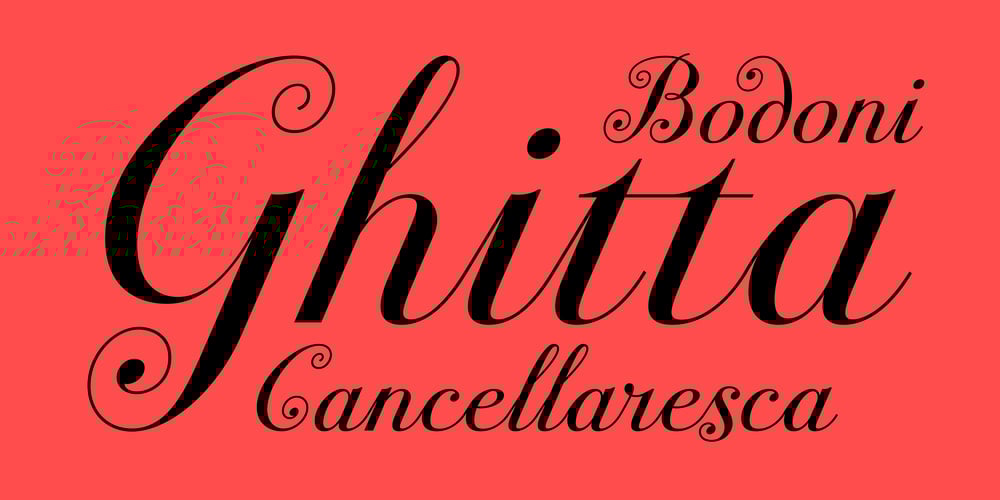
Ghitta Bodoni Cancellaresca Font Family was designed by Giambattista Bodoni, Jakub Spurný and published by Spurnej Type Foundry. Ghitta Bodoni Cancellaresca contains 4 styles and family package options. Giambattista Bodoni was an Italian engraver, printer, and publisher who was one of the best typographers of the 18th century and became known worldwide for his iconic serif typeface. In the posthumous edition of Bodoni’s “Manual of Typography” published in 1818 by his widow Margherita “Ghitta” Dall’Aglio may also be found, among the other treasures, the Cancellaresca (Chancery).Ghitta is a redesign of this typeface in its finest form. With strong stroke contrast in 4 optical grades, 850 glyphs with wide range of language support, accented ligatures, oldstyle figures, 8 stylistic sets, and unique way of letter connection, Ghitta Bodoni Cancellaresca follows and builds on the best of Bodoni’s historical prototype and shifts further to a contemporary script typeface full of grace, neatness, and beauty.***This font is powered by OpenType feature “Ligatures”, so it is necessary to have this function turned on.If you need support or more information, please kindly contact me:spurnej@email.cz